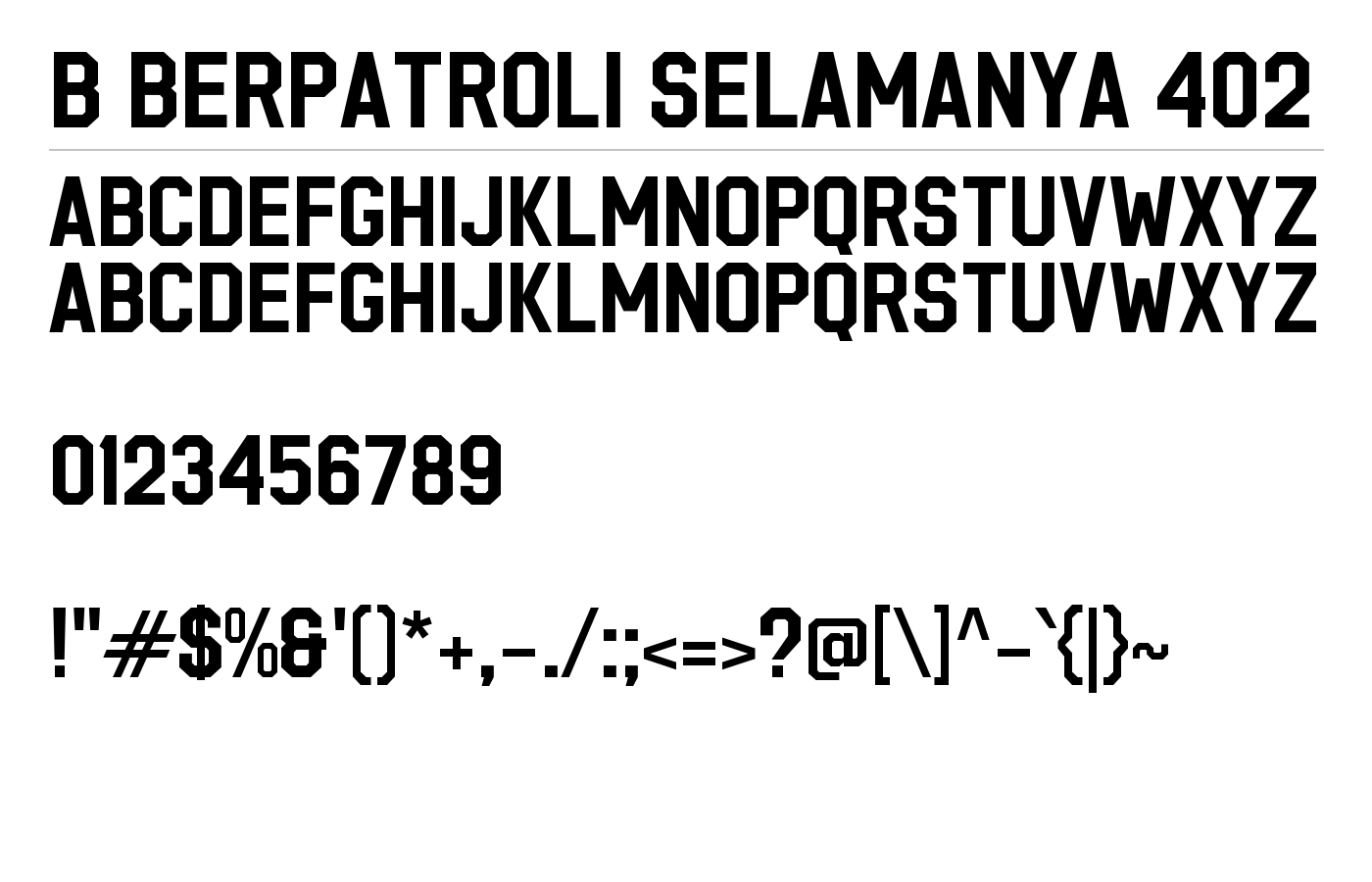
Berpatroli Selamanya 402 is a bold, condensed sans serif font with a strong and sturdy appearance. Its uniform stroke weight and slightly angular letterforms give it a modern, industrial feel, making it ideal for impactful headlines, logos, and branding that require a confident and assertive style. This font works especially well for projects in sports, military, or urban themes where a powerful visual presence is key.
b Berpatroli Selamanya 402 Font
About b Berpatroli Selamanya 402 Font